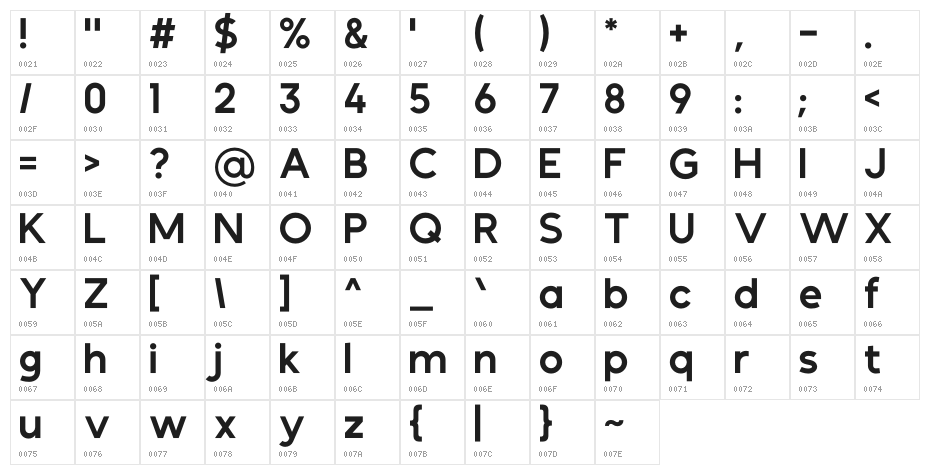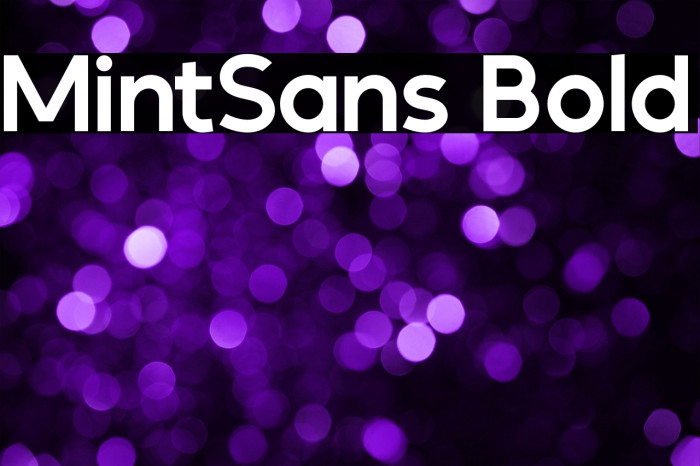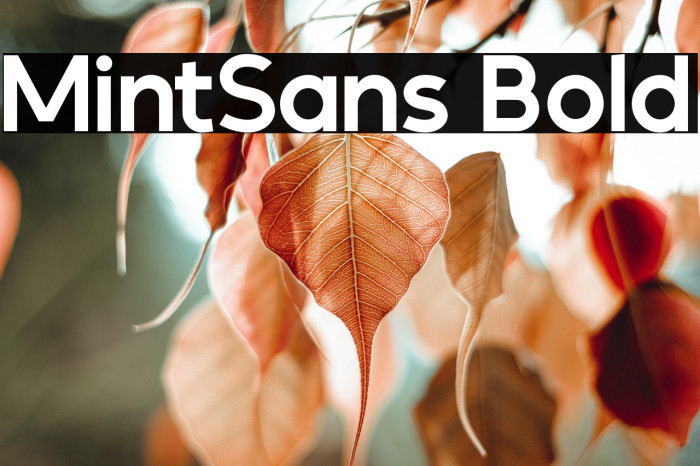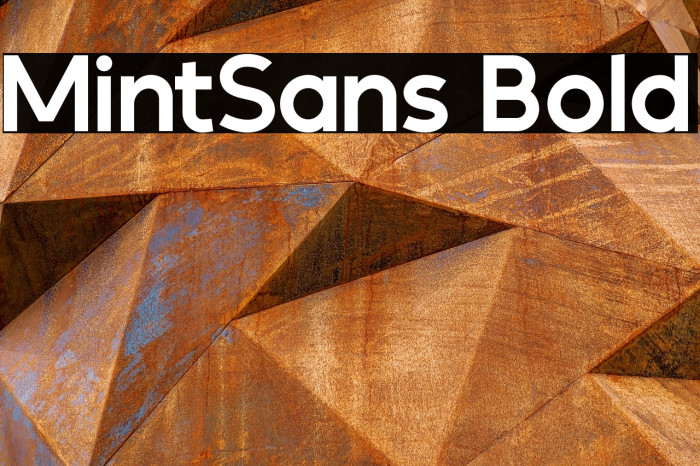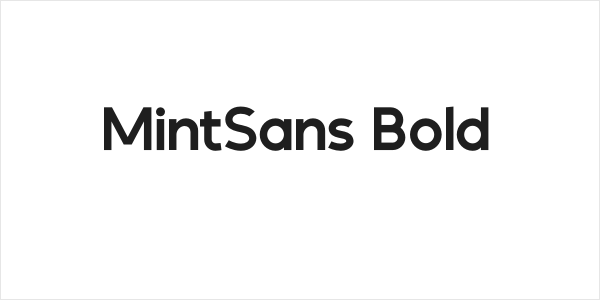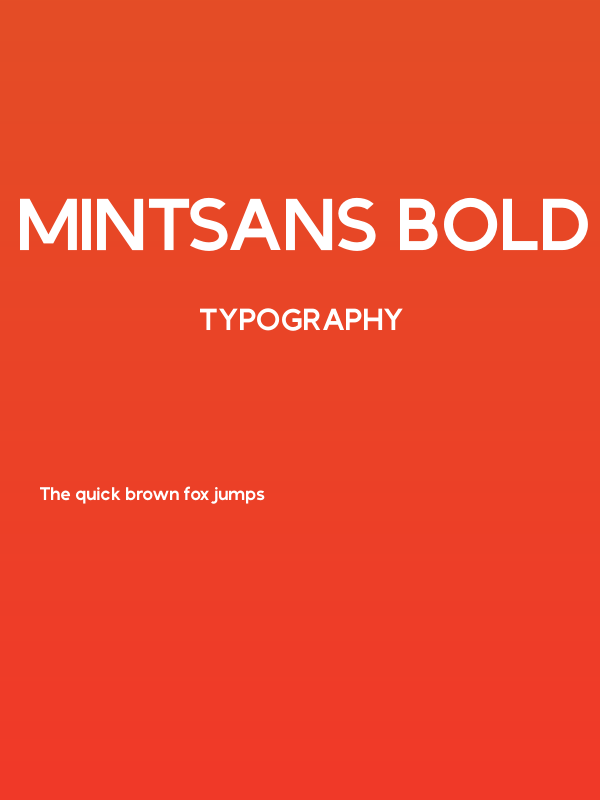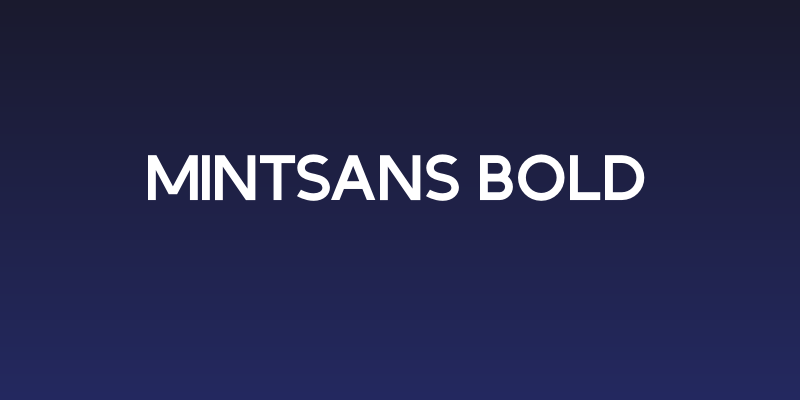
MintSans Bold Font
MintSans Bold Description
This font showcases a clean and modern sans-serif style with bold, uniform strokes. The characters are well-balanced, featuring a geometric design that emphasizes clarity and readability. The uppercase and lowercase letters maintain a consistent height and width, contributing to a harmonious appearance. The numerals are straightforward and align perfectly with the overall aesthetic, ensuring they are easily distinguishable. Special characters are crafted with precision, matching the font's sleek and contemporary look. This font is versatile, suitable for various design applications where a bold and modern impression is desired.